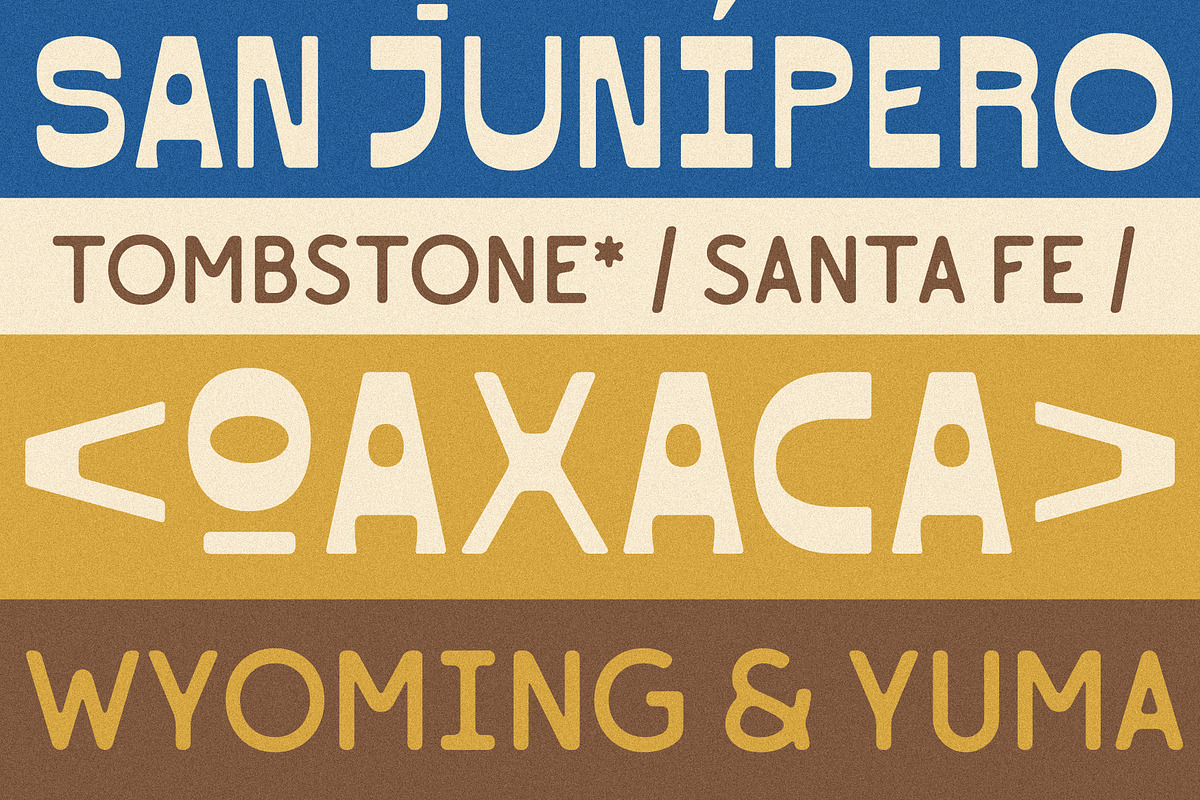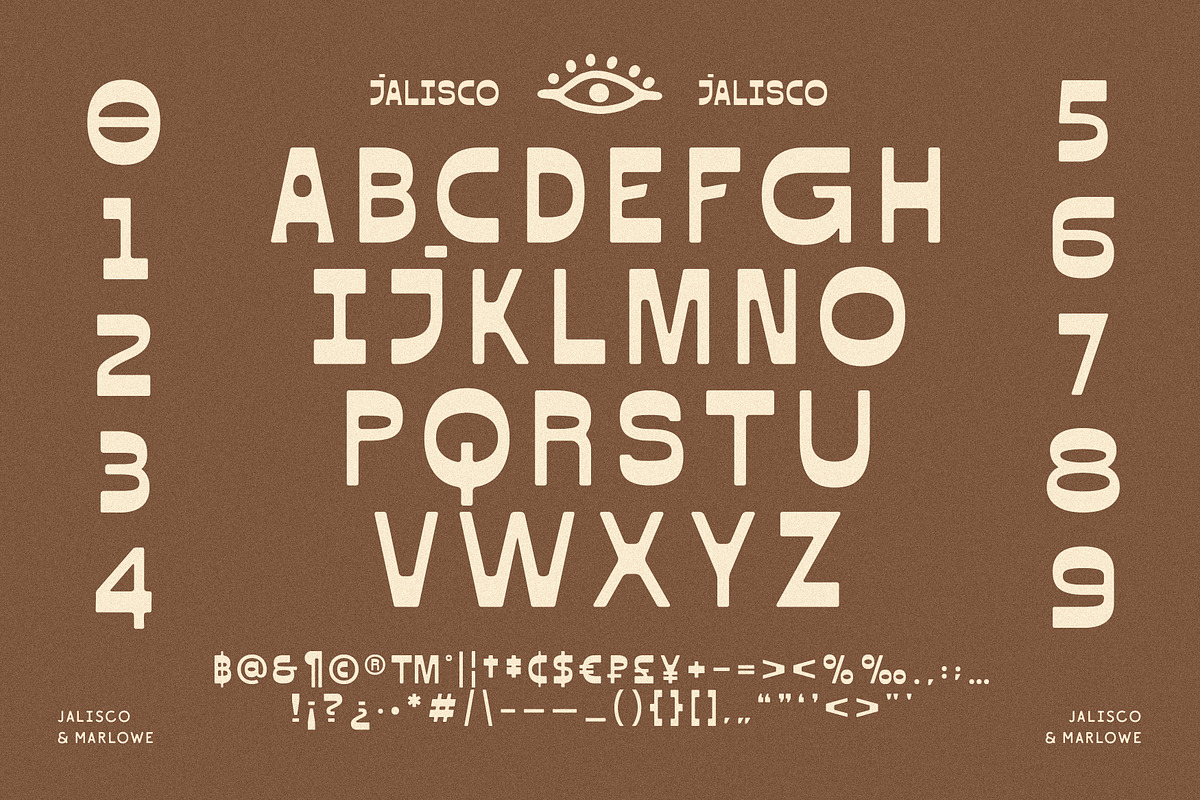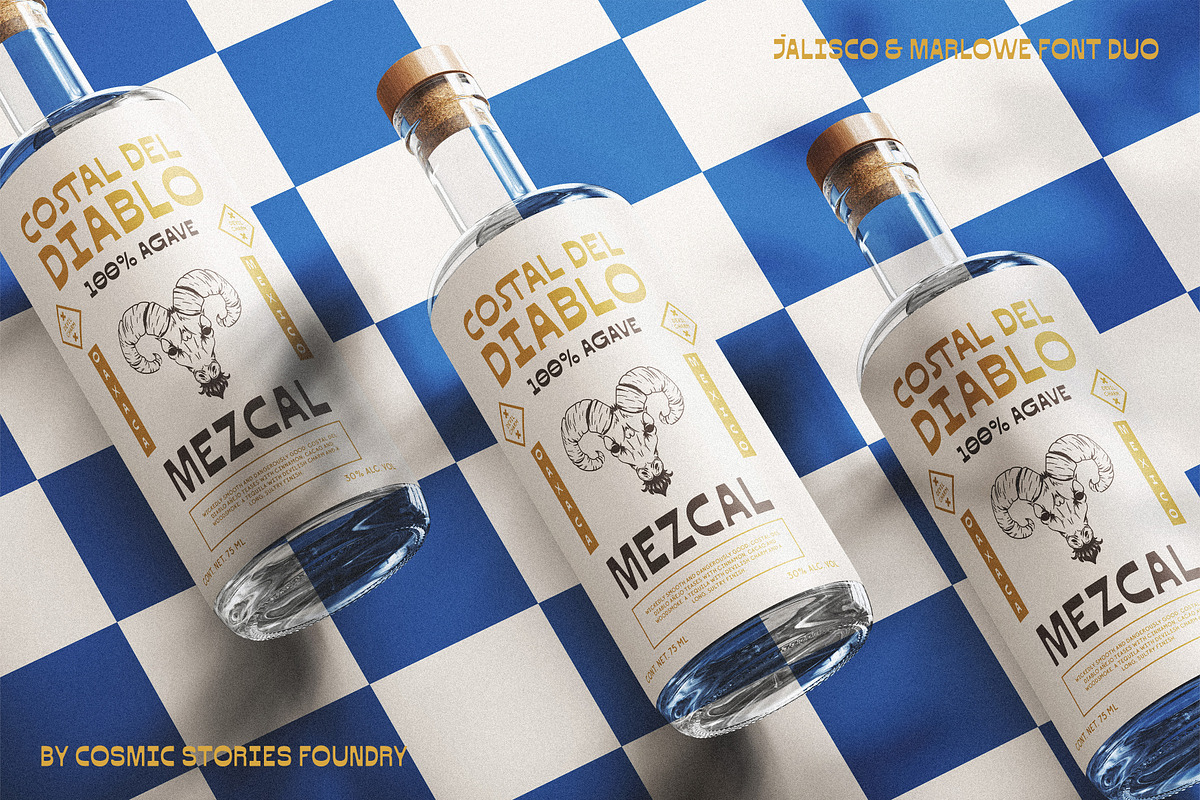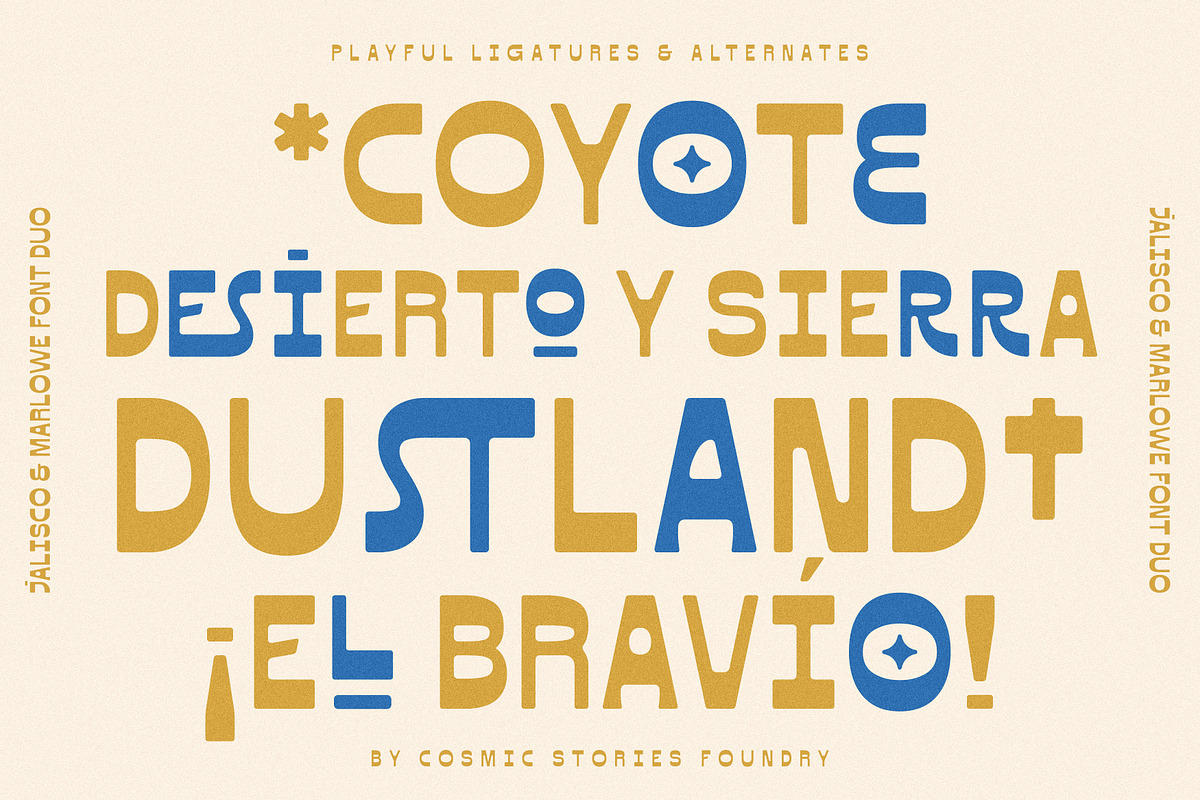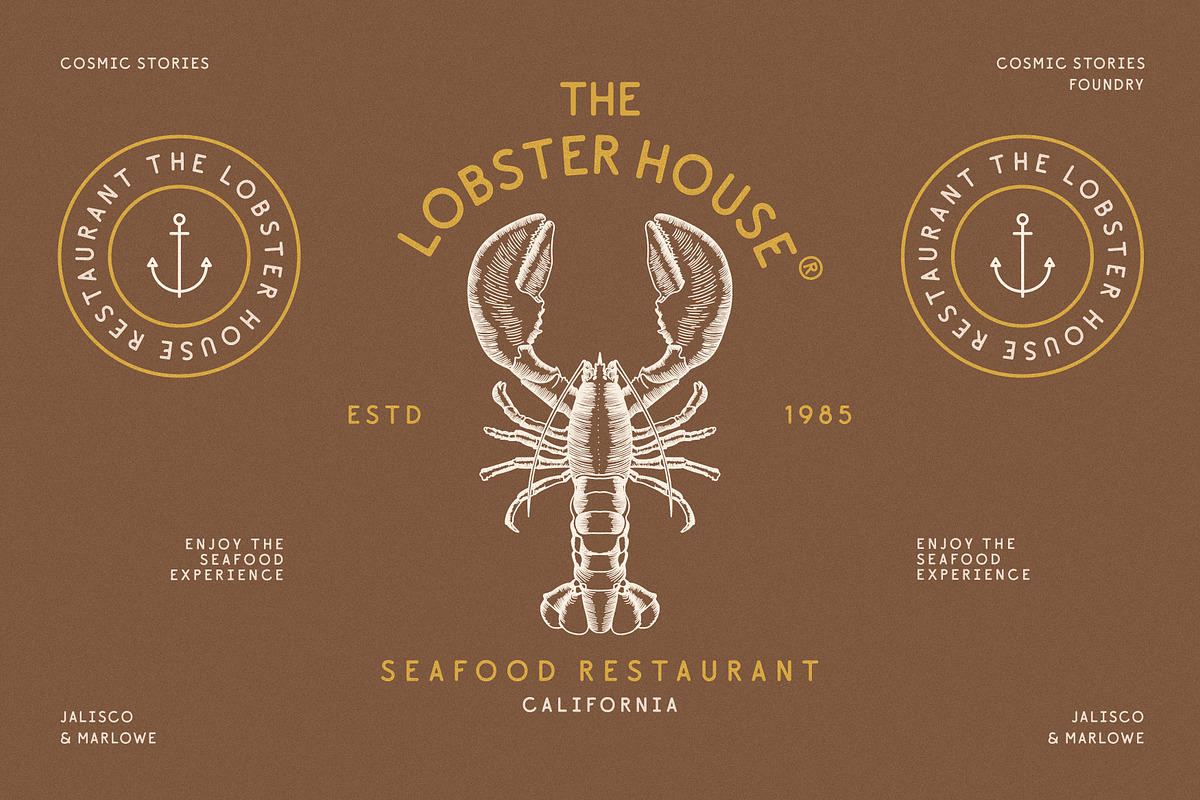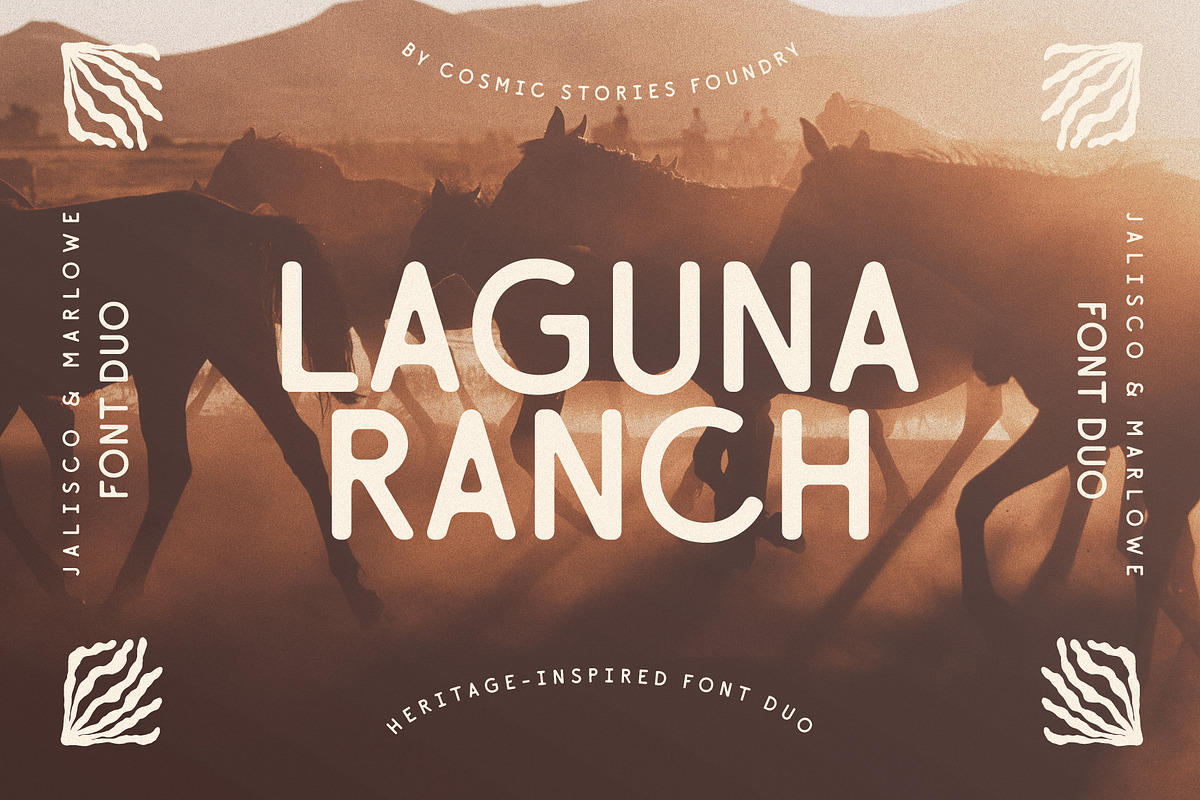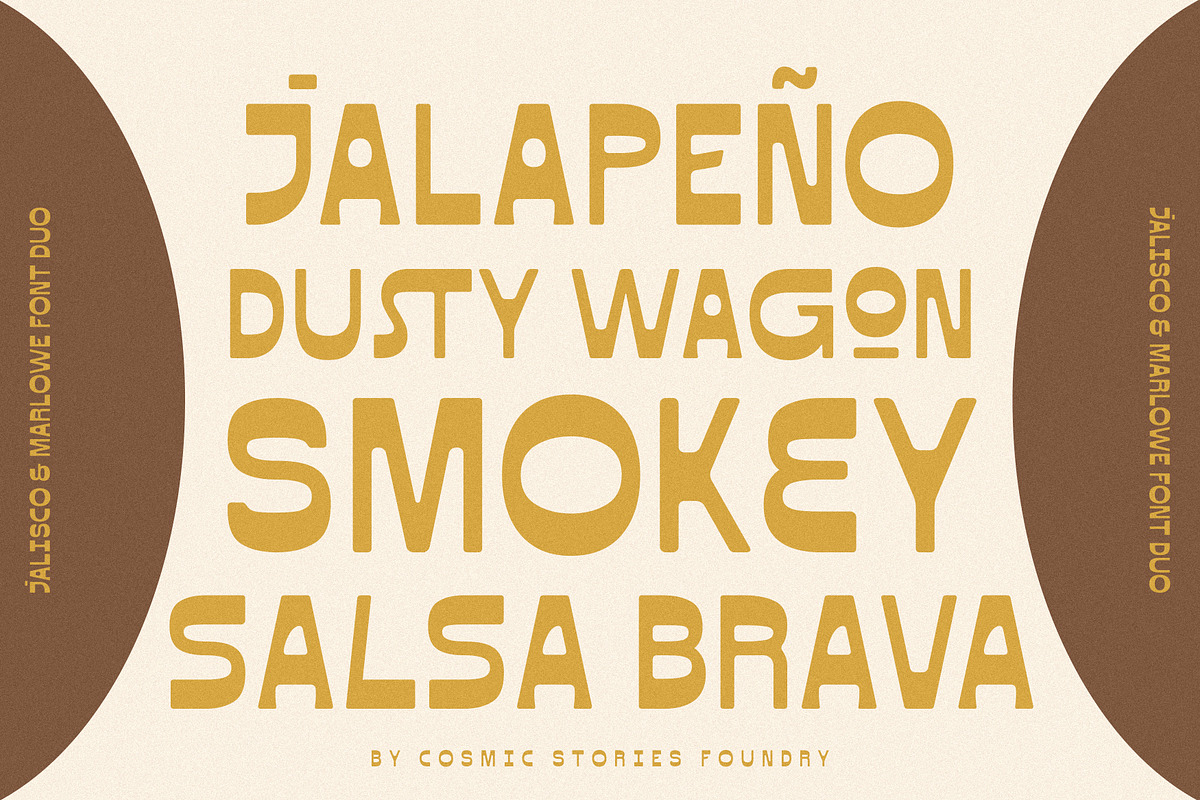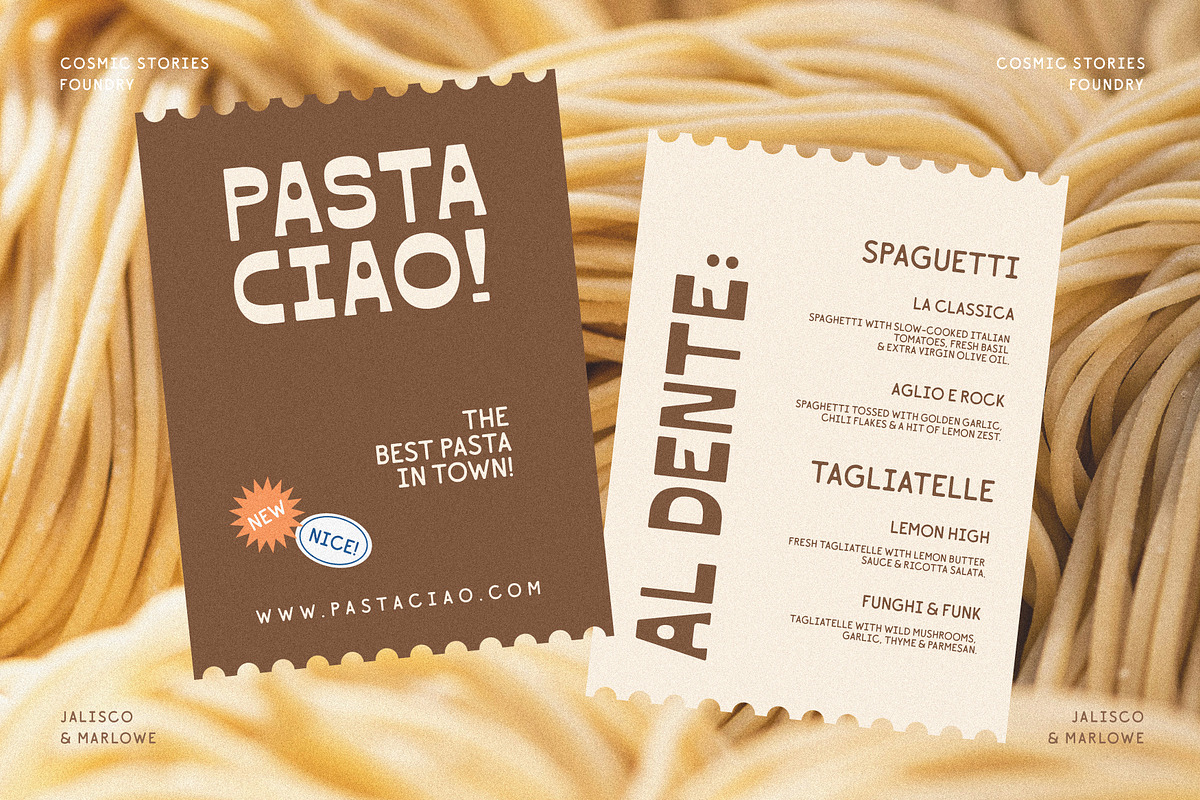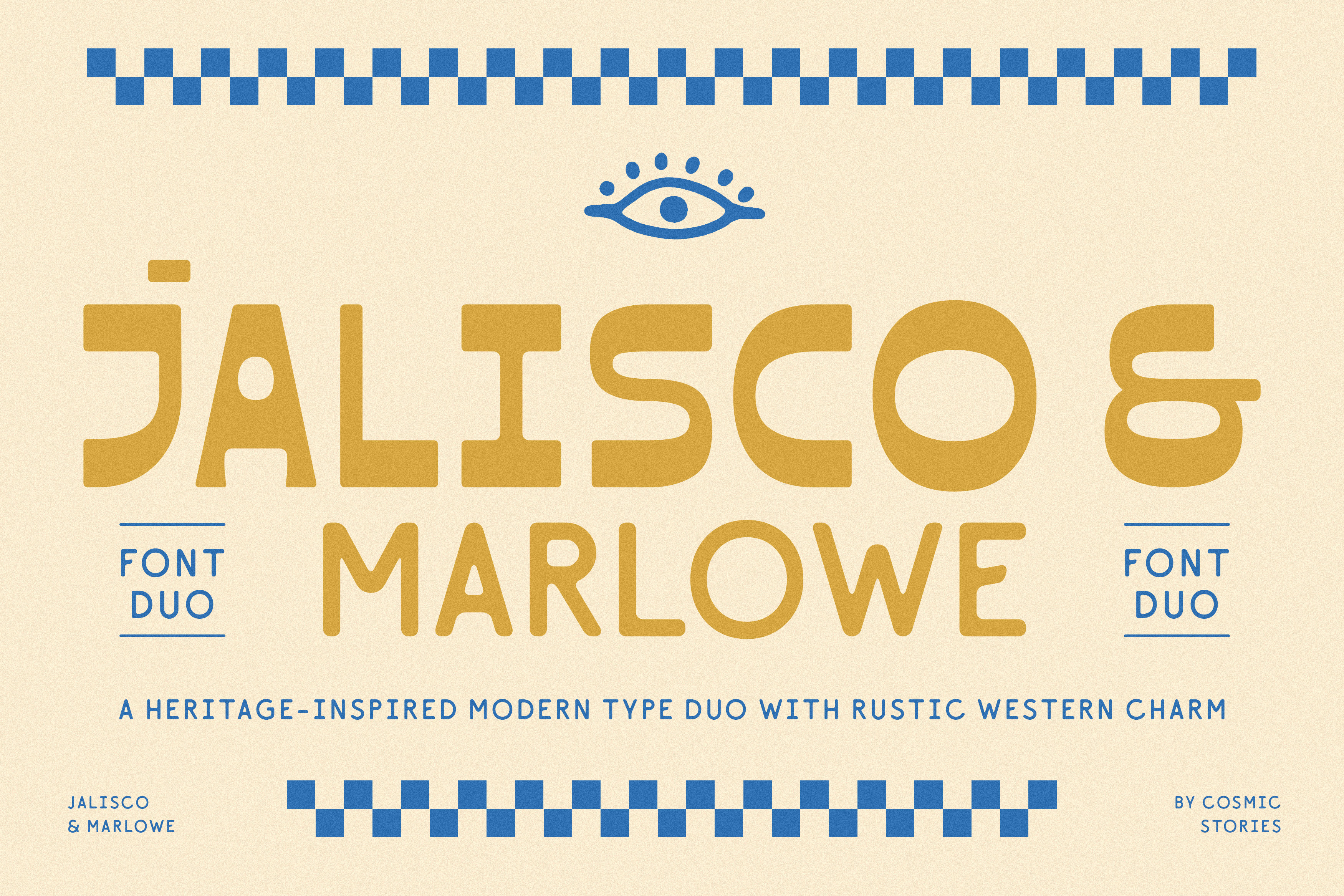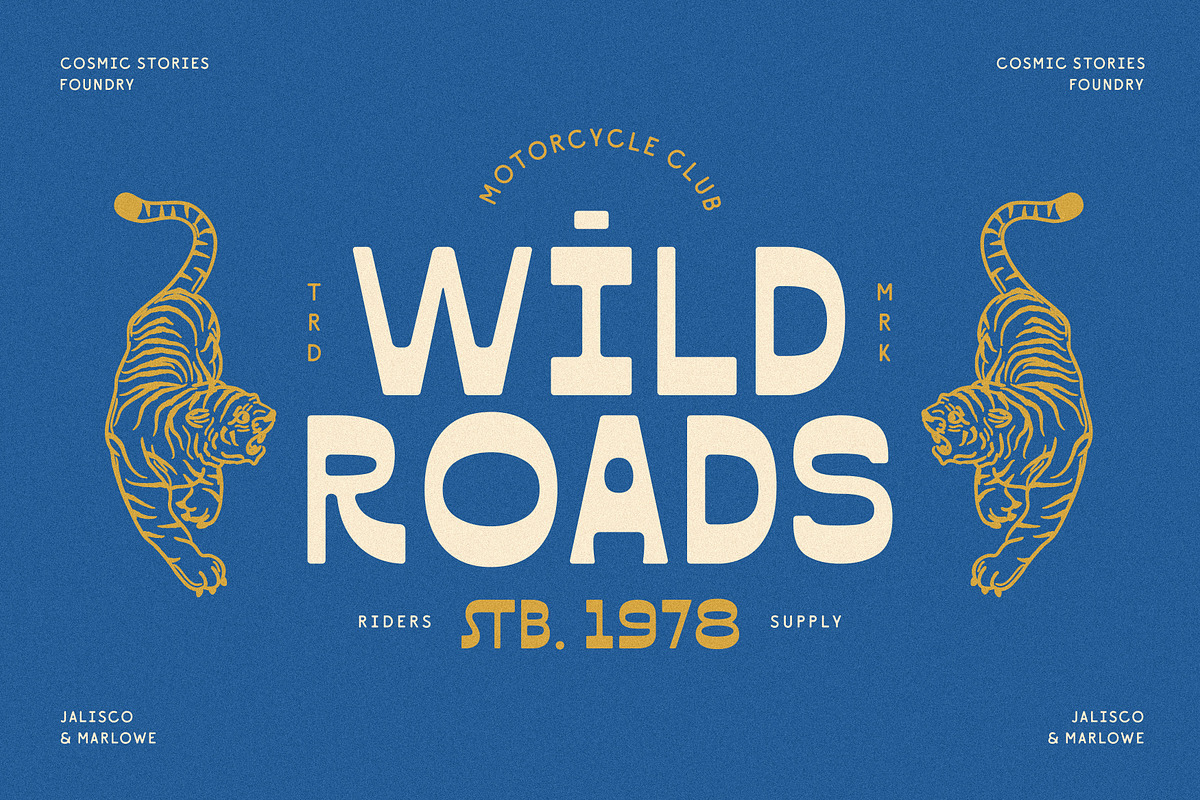
Jalisco & Marlowe Display Font Duo
✨ Meet Jalisco & Marlowe — A rustic heritage-inspired modern type duo.
Rooted in contrast and crafted character, Jalisco & Marlowe is a versatile all caps type duo that blends rustic charm, western flair, and modern clarity.
Jalisco, the bold display face, draws inspiration from vintage sign painting and western letterforms—reimagined without serifs, but with striking contrast and a unique rhythm. It includes a rich set of discretionary ligatures and stylistic alternates, perfect for creating standout logos, expressive titles, and handcrafted compositions.
Marlowe, the smooth sans serif companion, brings balance with its soft curves and friendly geometry. Highly legible at smaller sizes, it complements Jalisco with quiet elegance and modern simplicity.
Together, they create a perfect pairing for artisan branding, rustic packaging, and sun-soaked summer visuals—from craft beverages to boutique labels, editorial spreads, and lifestyle design.ç
- Ligatures & Alternates includes in Jalisco Type
Ideal for:
- Craft beverages
- Summer editorials
- Boutique branding
- Heritage-inspired packaging